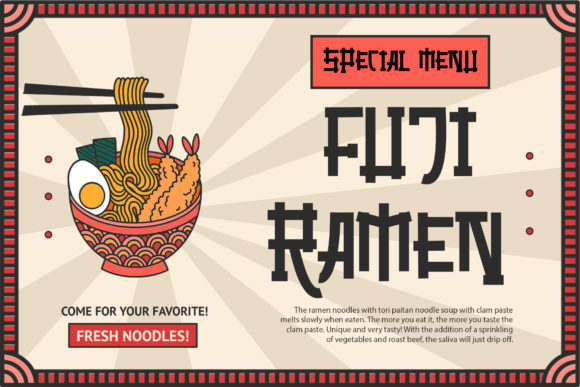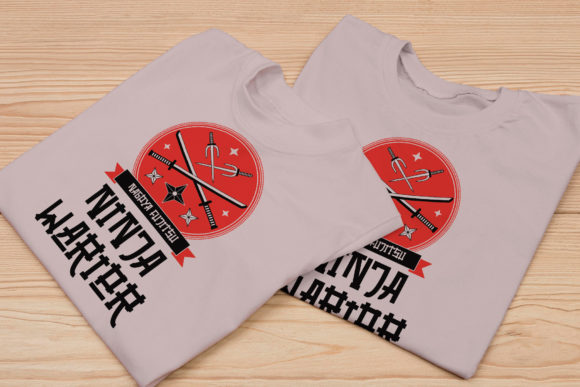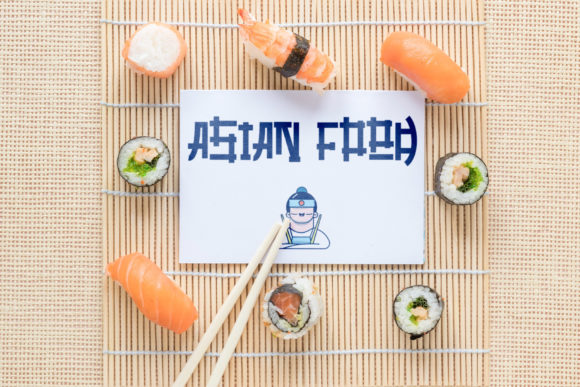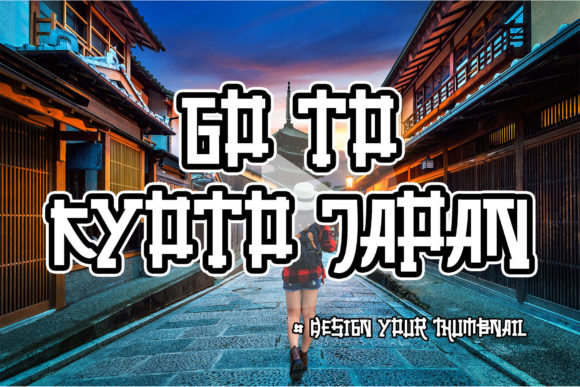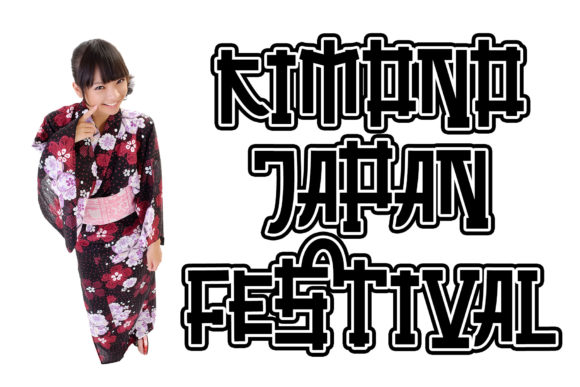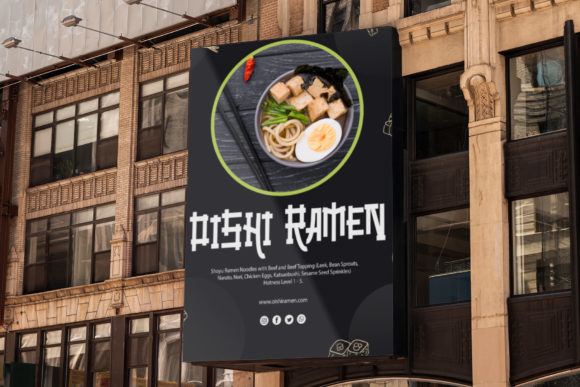
Aisiteru Font: Elevate Your Designs with a Unique Japanese-Inspired Display Font
In the world of typography, fonts play a crucial role in making or breaking a design. A font can either elevate your design to new heights or leave it looking dull and unimpressive. If you’re a designer or crafter looking for a font that can add a touch of elegance and uniqueness to your work, look no further than Aisiteru Font. In this article, we’ll explore the features and benefits of Aisiteru Font, and how it can be used to create stunning designs.
What is Aisiteru Font?
Aisiteru Font is an incredibly unique, Japanese-inspired display font that is perfect for adding a touch of elegance and sophistication to your designs. With its bold and striking appearance, Aisiteru Font is sure to grab attention and leave a lasting impression. The font’s Japanese inspiration is evident in its intricate and detailed design, making it a standout from more traditional fonts.
Key Features of Aisiteru Font
So, what makes Aisiteru Font so special? Here are just a few of its key features:
- Unique and eye-catching design: Aisiteru Font features a bold and striking design that is sure to grab attention.
- Japanese inspiration: The font’s Japanese inspiration gives it a unique and exotic feel that will add a touch of elegance to your designs.
- Perfect for display text: Aisiteru Font is designed specifically for display text, making it perfect for use on food menus, posters, flyers, and prints.
- Highly versatile: Despite its bold design, Aisiteru Font is highly versatile and can be used for a wide range of design projects.
Uses for Aisiteru Font
So, how can you use Aisiteru Font in your designs? Here are just a few ideas to get you started:
- Food menus: Aisiteru Font is perfect for use on food menus, adding a touch of elegance and sophistication to your restaurant’s branding.
- Posters and flyers: The font’s bold design makes it perfect for use on posters and flyers, grabbing attention and drawing the eye.
- Prints: Aisiteru Font can be used for a wide range of print projects, from business cards to brochures.
- Branding and packaging: The font’s unique design makes it perfect for use in branding and packaging, helping to create a memorable and recognizable brand identity.
Tips for Using Aisiteru Font
To get the most out of Aisiteru Font, here are a few tips to keep in mind:
- Use it sparingly: Due to its bold design, Aisiteru Font is best used sparingly to avoid overwhelming the viewer.
- Pair it with complementary fonts: Aisiteru Font can be paired with complementary fonts to create a unique and visually appealing design.
- Experiment with different colors and textures: The font’s design lends itself well to experimentation with different colors and textures, so don’t be afraid to try new things.
In conclusion, Aisiteru Font is a unique and versatile font that can add a touch of elegance and sophistication to your designs. With its bold and striking appearance, Aisiteru Font is perfect for use on food menus, posters, flyers, and prints. Whether you’re a designer or crafter, Aisiteru Font is a great addition to your font library, offering endless possibilities for creative expression. So why not give Aisiteru Font a try today and see the difference it can make in your designs?
With its endless possibilities and highly versatile design, Aisiteru Font is sure to become a go-to font in your design arsenal. So don’t wait – explore the possibilities of Aisiteru Font today and take your designs to new heights!